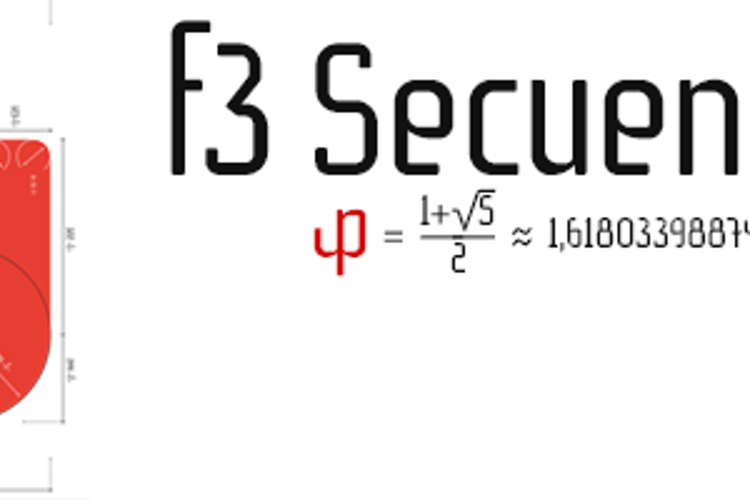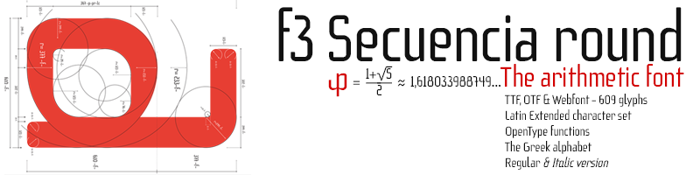
f3 Secuencia round Font
This is the third typeface belonging to the series of fonts drawn with golden proportions with regular and italic version.
• OpenType functions
• Alternative characters
• Greek characters
• Numbers old style
• Numbers Small Caps
• Ligatures
• Fractions
• Currency
• Denominators
• Numerators